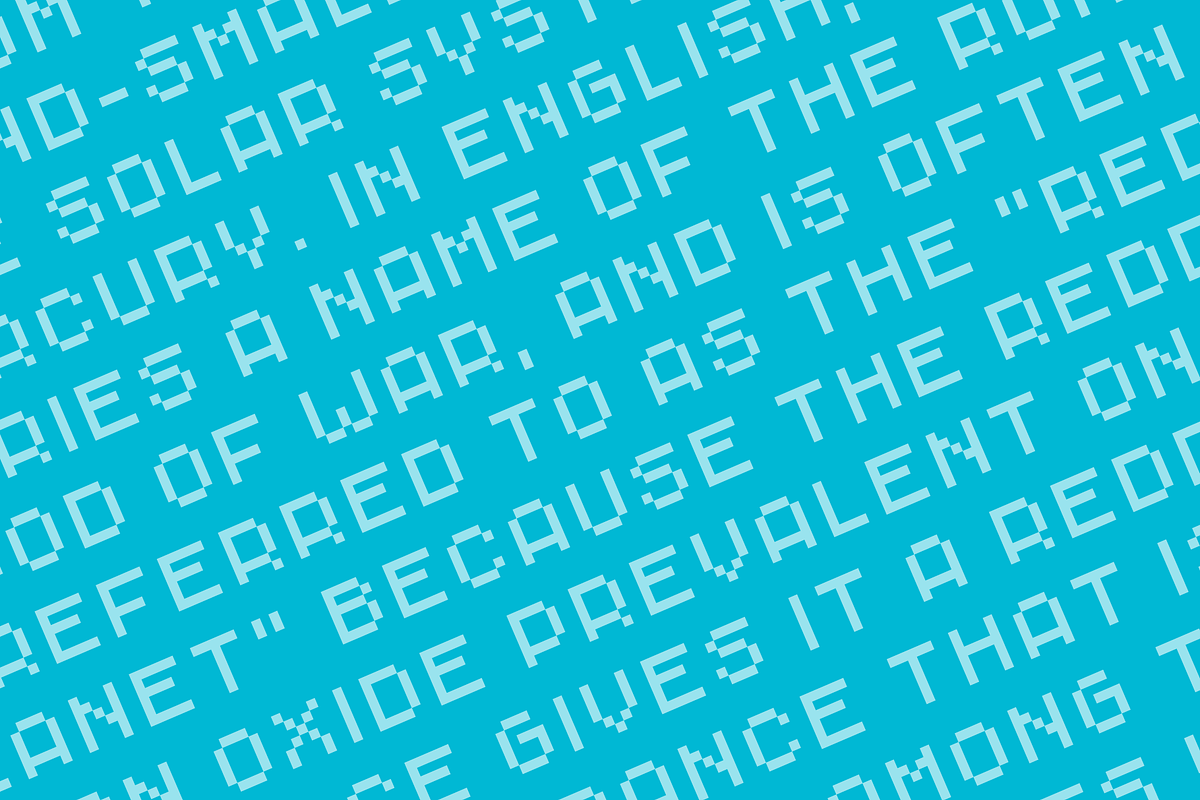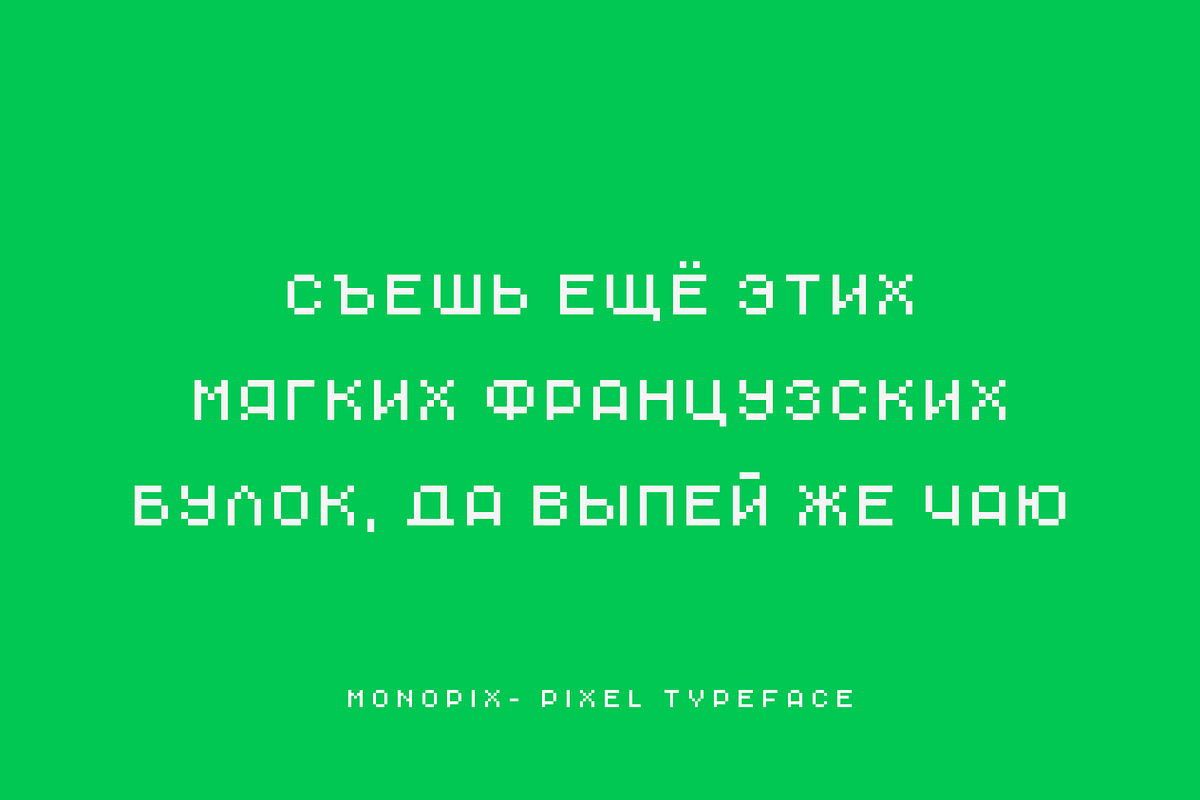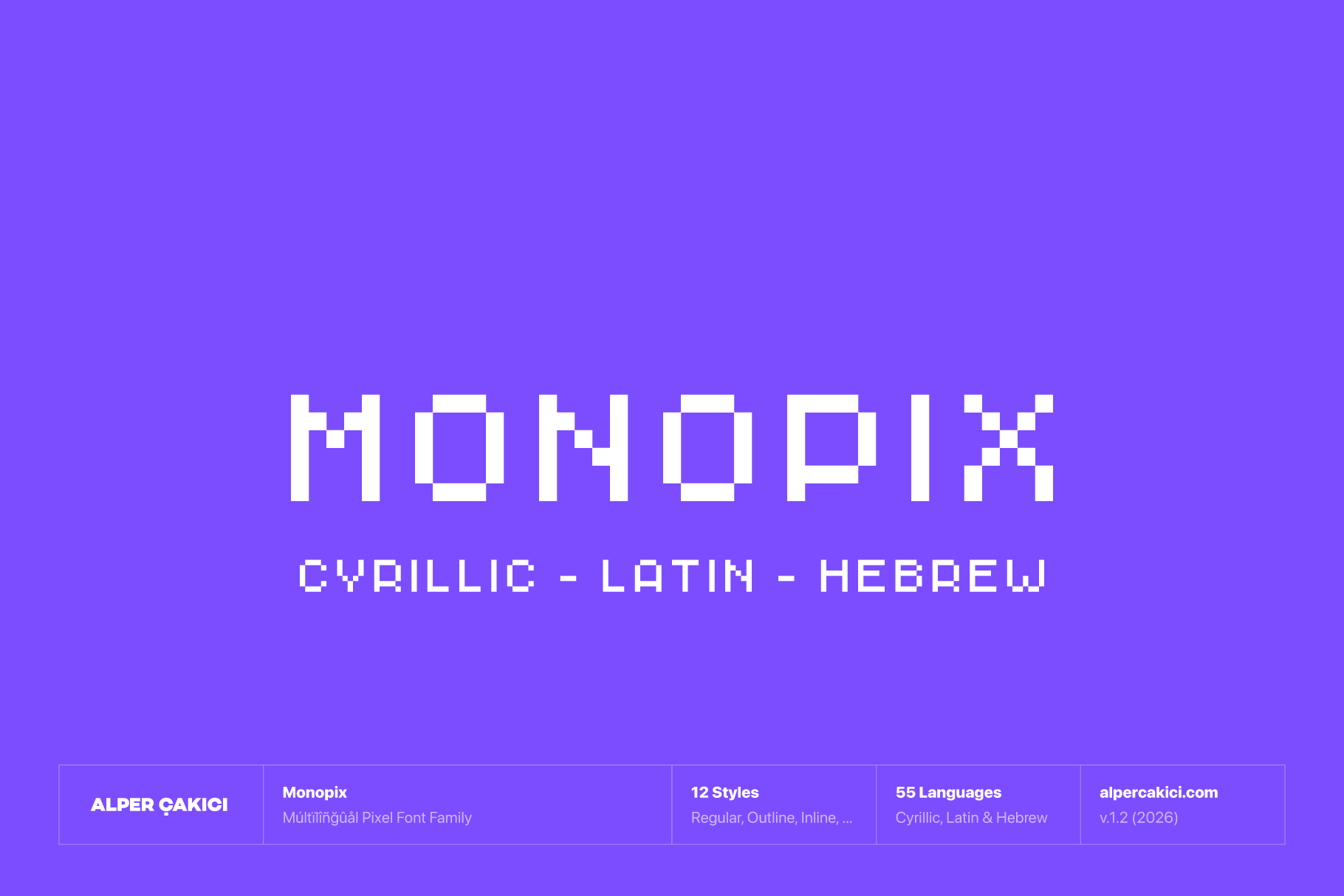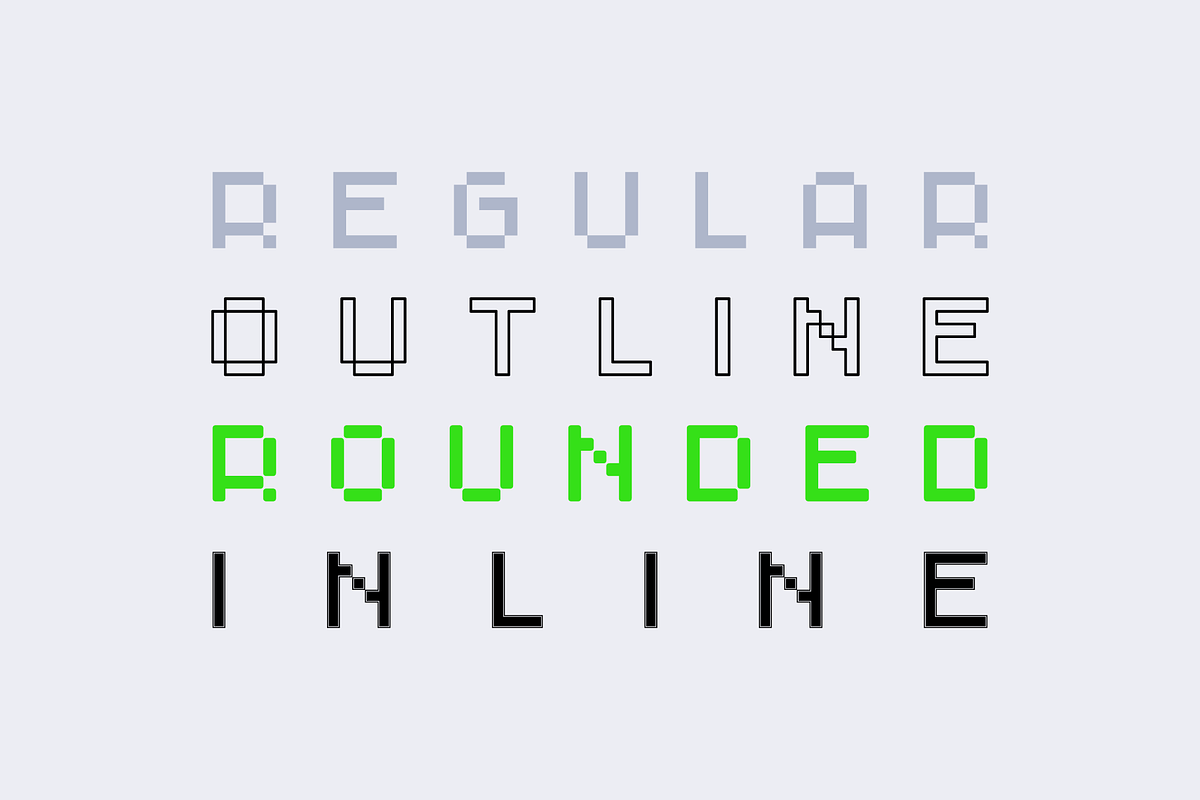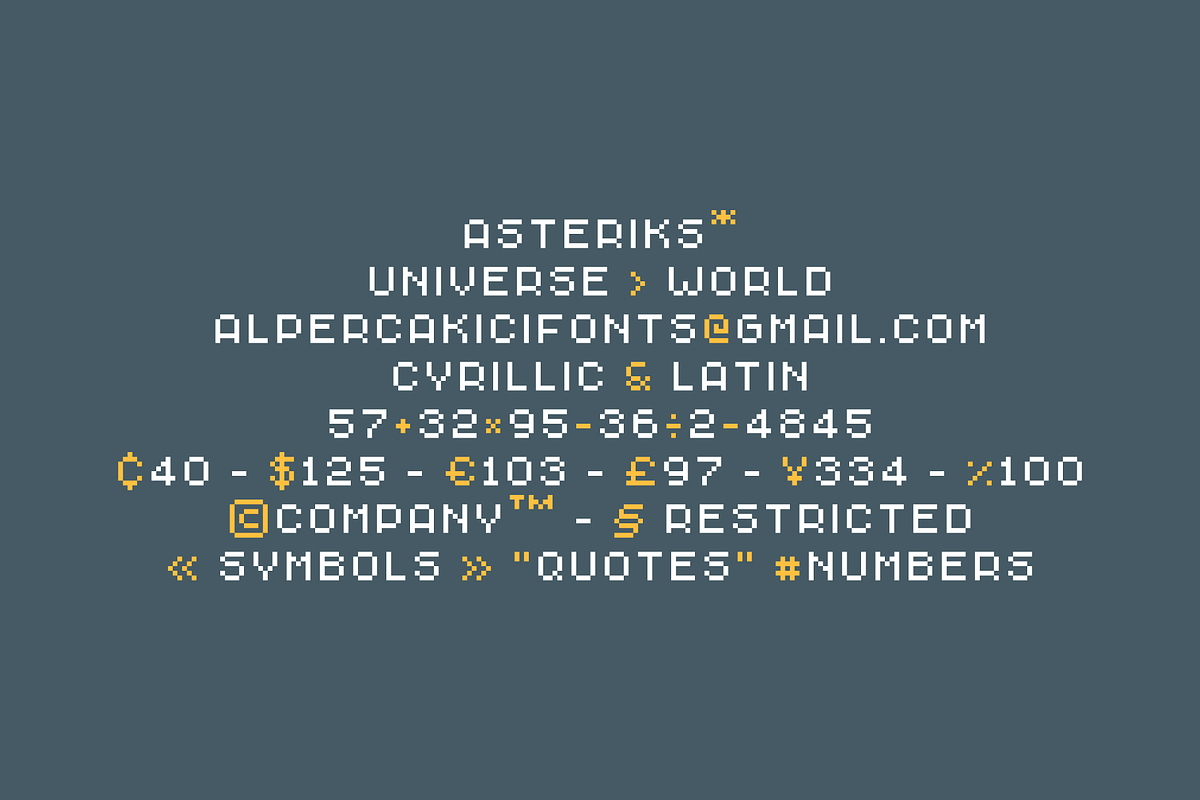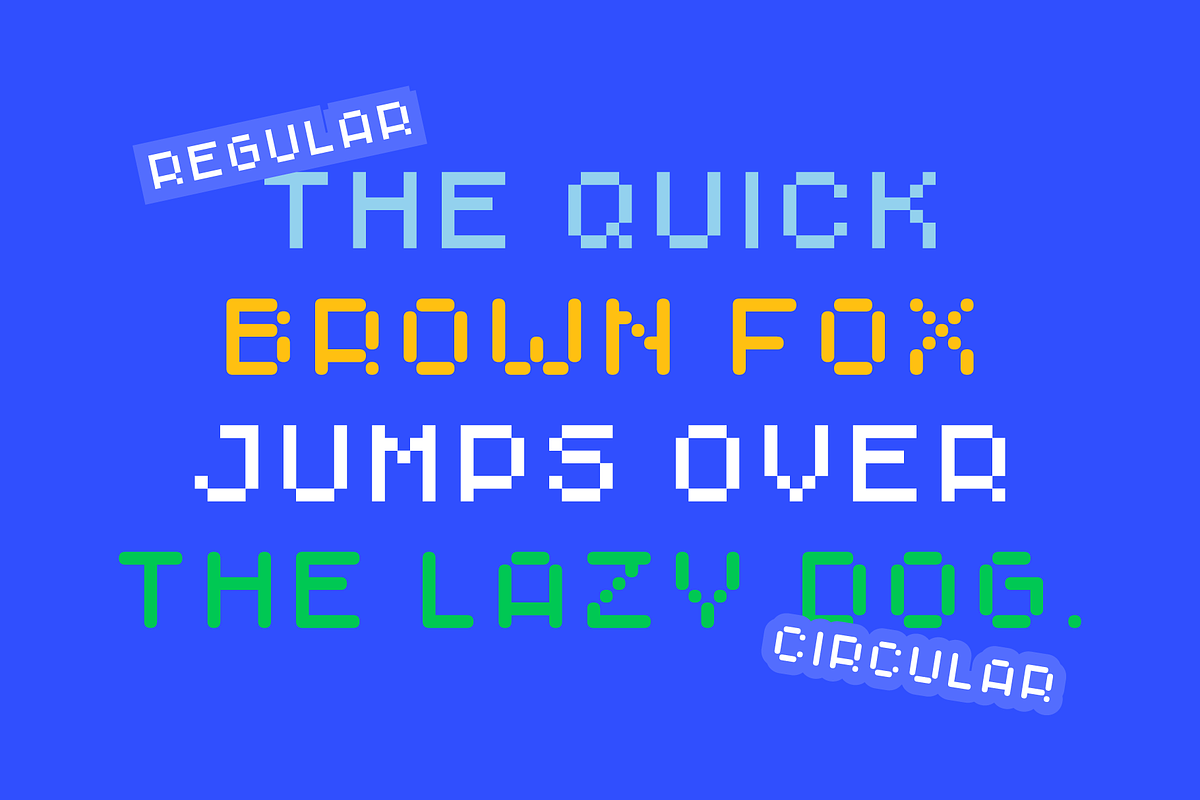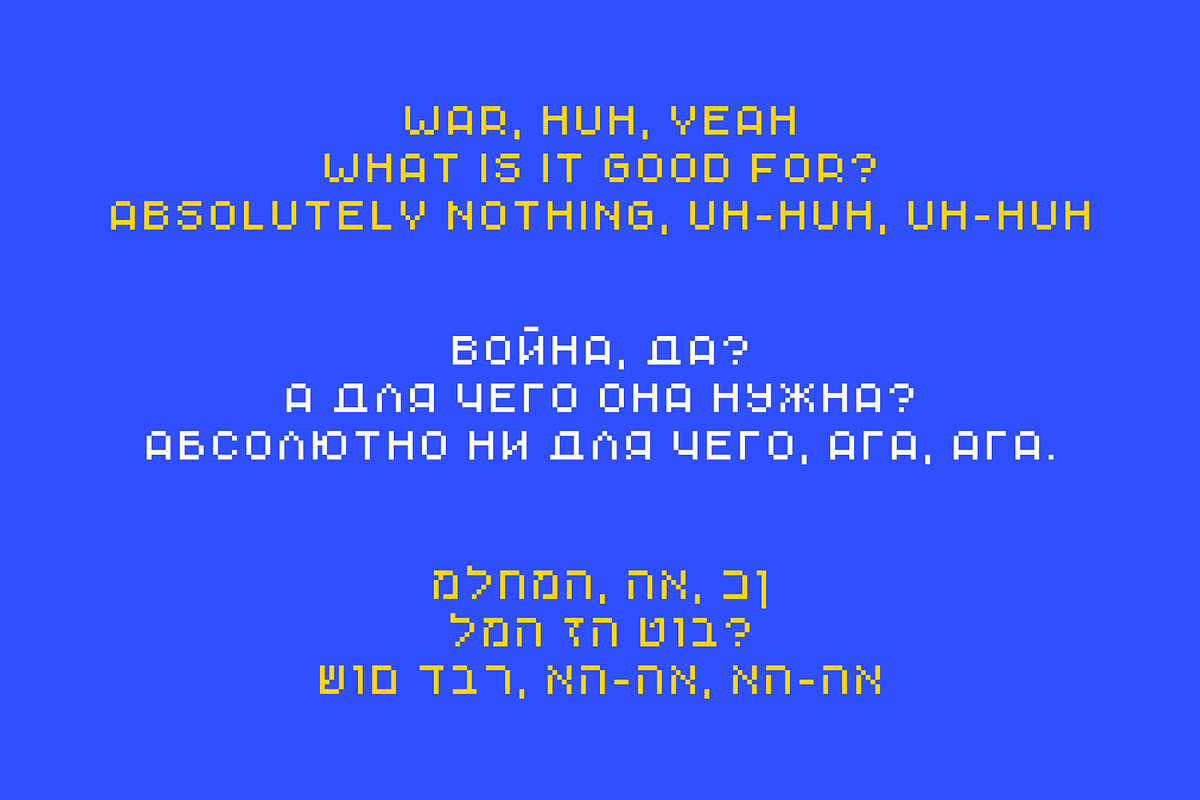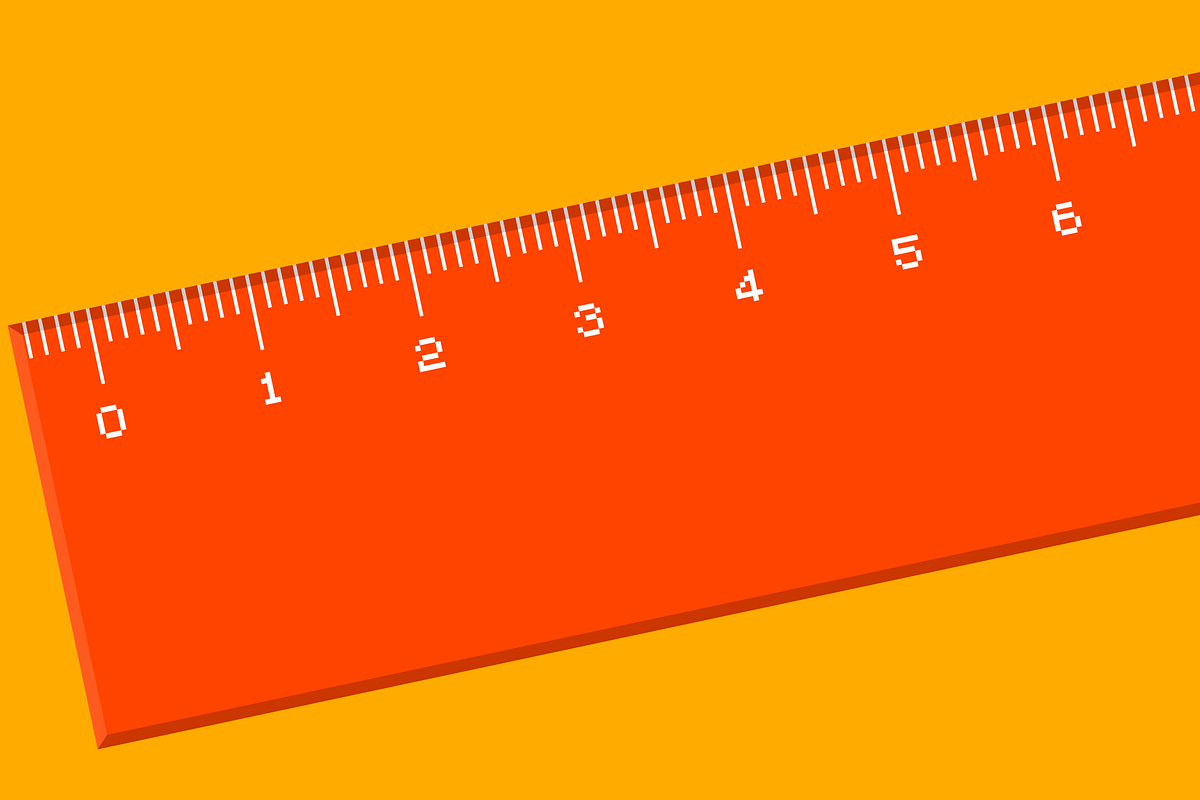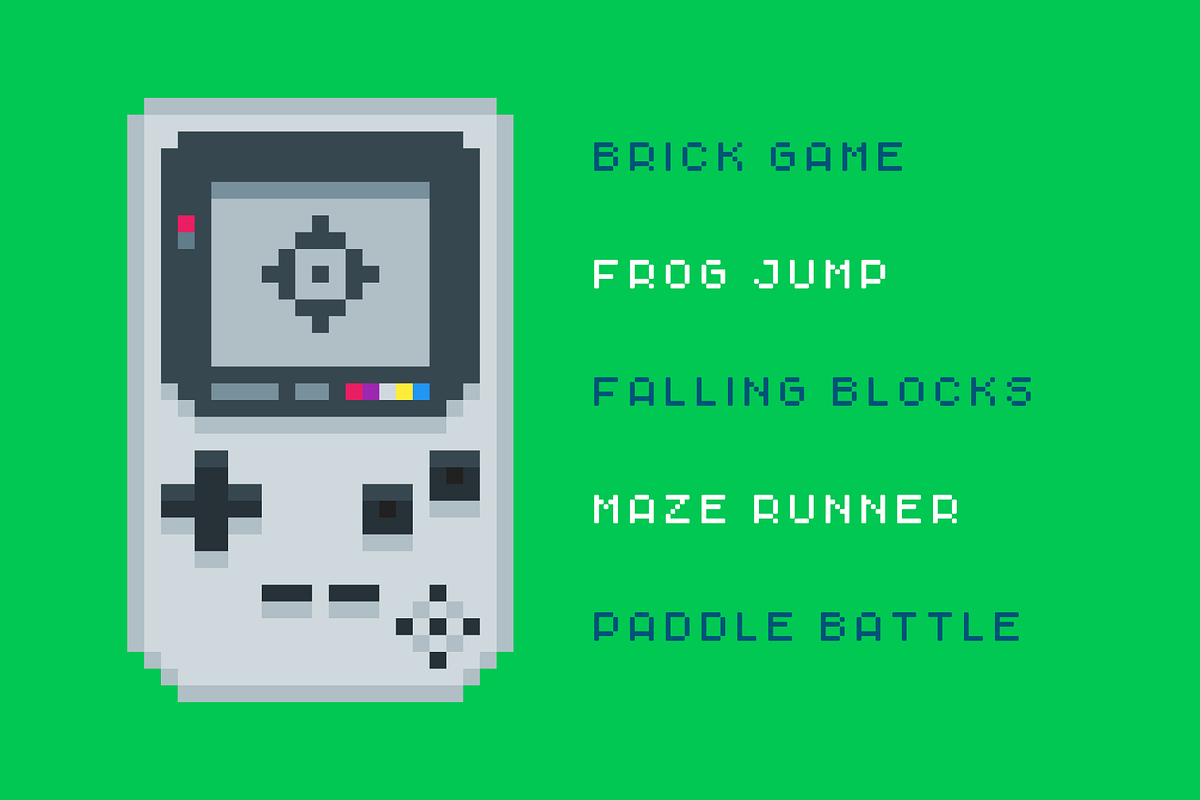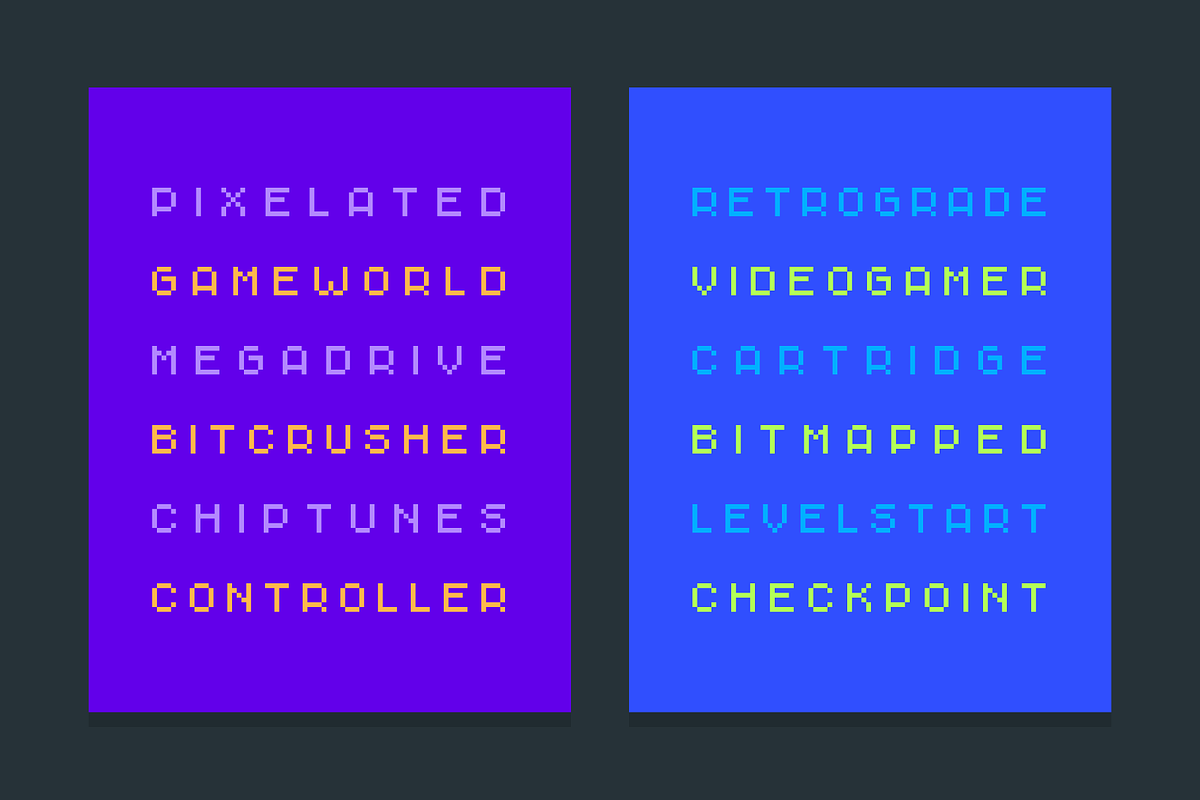
Monopix Pixel Typeface (12 Fonts)
Monopix is a modern pixel typeface that blends retro 8-bit charm with clean contemporary precision. Designed for versatility, it delivers crisp readability while preserving the nostalgic character of classic bitmap typography.
From game titles and esports branding to posters, social media graphics, UI design, packaging, and tech-inspired identities, Monopix adapts effortlessly. The Circular and Rounded families soften the pixel aesthetic for modern branding, while Outline, Inline, and Shadow styles add depth and dimension.
Monopix supports a wide range of Latin, Hebrew, Cyrillic, and special character sets, making it ideal for global projects. Key languages include:
English, Indonesian, Malay, Swahili, Somali, Zulu, Xhosa, Shona, Southern Sotho, North Ndebele, South Ndebele, Belarusian, Bulgarian, Russian, Ukrainian, Cornish, Hebrew, Cebuano, Oromo, Kinyarwanda, Rundi, Tsonga, Wolastoqey, Zhuang, and many more.
This broad multilingual support makes Monopix a strong choice for international branding, gaming communities, and cross-market campaigns.
Monopix — Pixel precision. Modern impact. Global reach.